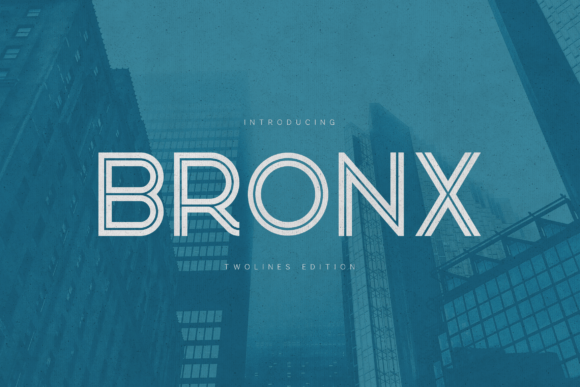
The Perfect Blend of Urban Edge and Sophistication
You’re sitting at your desk, staring at a blank canvas, and the words just aren’t flowing. You need something that sparks inspiration, something that gives your design a much-needed boost. That’s when you stumble upon the perfect font – the Bronx Twolines Edition Font.
This modern outline display font is a game-changer for designers looking to add a touch of urban sophistication to their work. With its distinctive double-line construction and clean geometric forms, the Bronx Twolines Edition Font delivers a bold yet refined look that’s perfect for headlines, posters, and branding. Its versatility and readability make it a valuable asset for any designer looking to elevate their projects.
Bronx Twolines Edition Font Key Features
- Font Family: Bronx Twolines Edition is a unique font family that combines two lines of text, perfect for creating visually appealing and modern designs.
- Unique Characteristics: The font’s distinctive two-line design creates a sense of depth and visual interest, ideal for use in creative projects, such as magazine headlines, book titles, and advertising materials.
- Language Support: Supports a wide range of languages, including Latin, Cyrillic, and Greek scripts, making it a versatile choice for international projects.
I’ve had the chance to work with the Bronx Twolines Edition Font, and I must say it’s been an interesting experience. Here’s my honest review.
- The font has a unique, nostalgic vibe that’s perfect for vintage-inspired designs.
- The two-line design element adds a touch of elegance and sophistication to any text.
- The font is highly legible, even at smaller font sizes, making it suitable for a wide range of applications.
- The font may not be suitable for modern or minimalist designs, as it can come across as too ornate or cluttered.
- The two-line design element can make the font look less cohesive when used with bold or italic styles.
The Bronx Twolines Edition Font is a solid choice for designers who want to add a touch of vintage charm to their projects. While it may have some limitations, its unique design element and high legibility make it a worthwhile option for the right projects. I’d recommend it for designers who are looking for a font with character and personality.
The Bronx Twolines Edition Font is perfect for creating bold and eye-catching headlines, titles, and captions.
Use it for:
– Social media graphics and advertisements
– Marketing materials and brochures
– Event promotions and posters
– Any project that requires a unique and stylish font
Q: What is the character set and language support for the Bronx Twolines Edition Font?
The Bronx Twolines Edition Font includes a comprehensive character set with support for Latin, Cyrillic, and Greek scripts. It also includes a wide range of punctuation marks, symbols, and diacritical characters. The font is designed to be highly legible and versatile, making it suitable for use in a variety of design contexts, including body text, headings, and display typography.